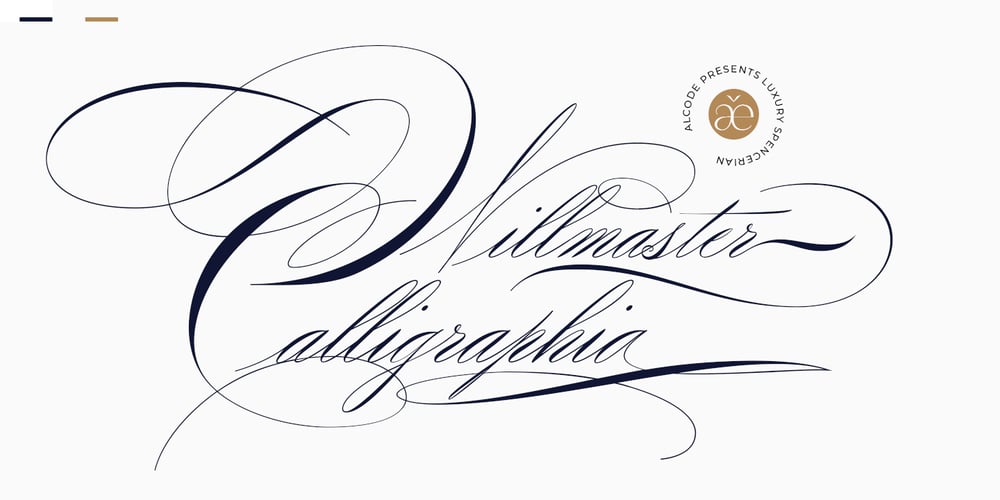
Willmaster Calligraphia Font Family was designed by Sukjana Almunandar and published by Alcode. Willmaster Calligraphia contains 1 styles and family package options. Willmaster Calligraphia is a classic yet modern script. It is particularly suitable for wedding media, book covers, greeting cards, logos, branding, business cards and certificates, in fact for any design work that requires a classic, formal or luxurious look.Try Willmaster Calligraphia, enjoy the richness of OpenType features and let her fun and elegant excitement make you happy and enhance your creativity! You can use this font very easily.Includes multilingual support and ornamental features.If you do not have programs that support OpenType features like Adobe Illustrator and CorelDraw X Versions, you can access all alternative flying machines using Font Book (Mac) or Character Map (Windows).